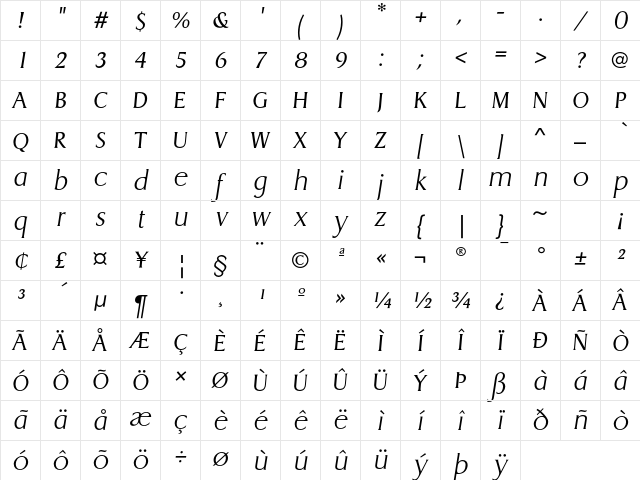
Complete DragonEF ExtraLightItalic glyph index. Displaying only characters natively supported by DragonEF ExtraLightItalic font.
DragonEF is a composed and adaptable typeface that performs quietly and consistently across a wide range of design contexts. The slanted form adds forward momentum and visual energy. Its slender proportions lend an understated elegance to any composition.